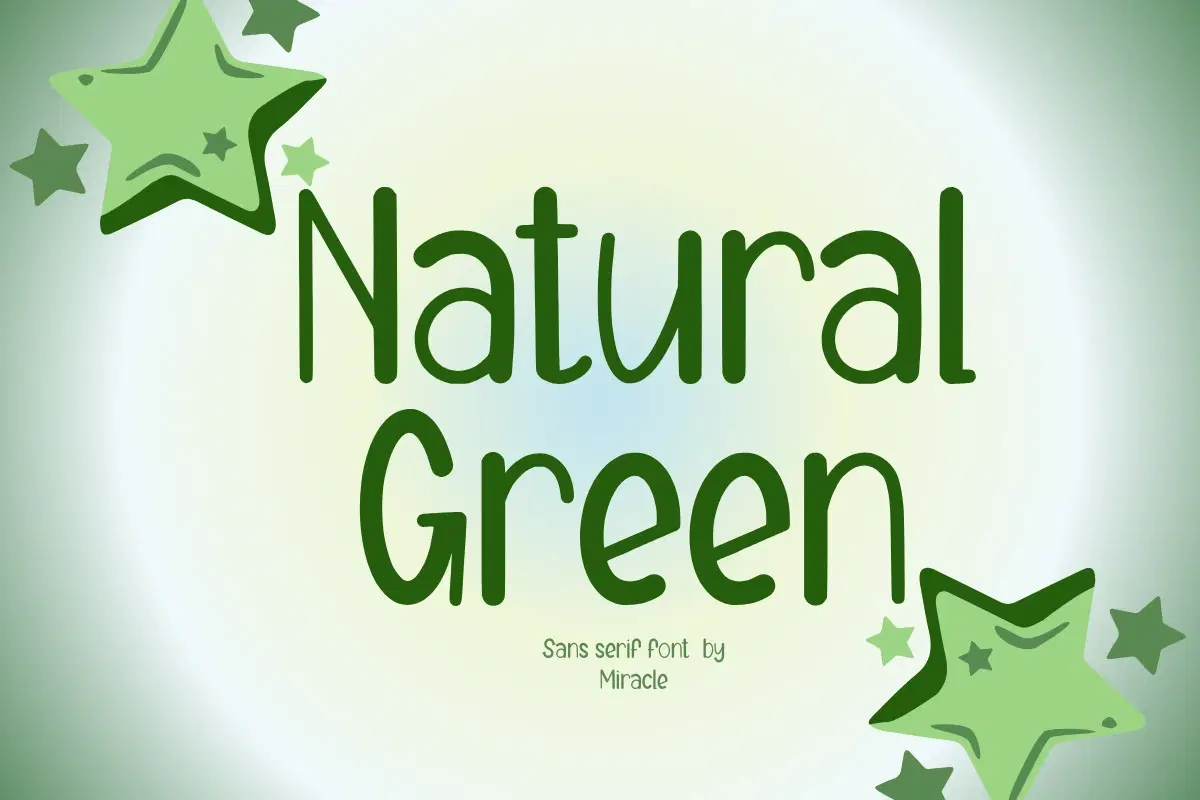
Embrace the beauty of nature with Natural Green, a refreshing and friendly sans serif font by Miracle. Characterized by its tall, slender letterforms and charming star accents, this font captures a sense of growth, vitality, and organic elegance. It is the perfect choice for designers looking to bring a breath of fresh air and a touch of whimsical nature to their creative projects.
Natural Green is designed for clarity and personality, making it a versatile asset for eco-friendly branding and vibrant lifestyle designs. Whether you are working on a sustainability campaign or a playful garden-themed layout, this font adds a "natural" spark to every word.